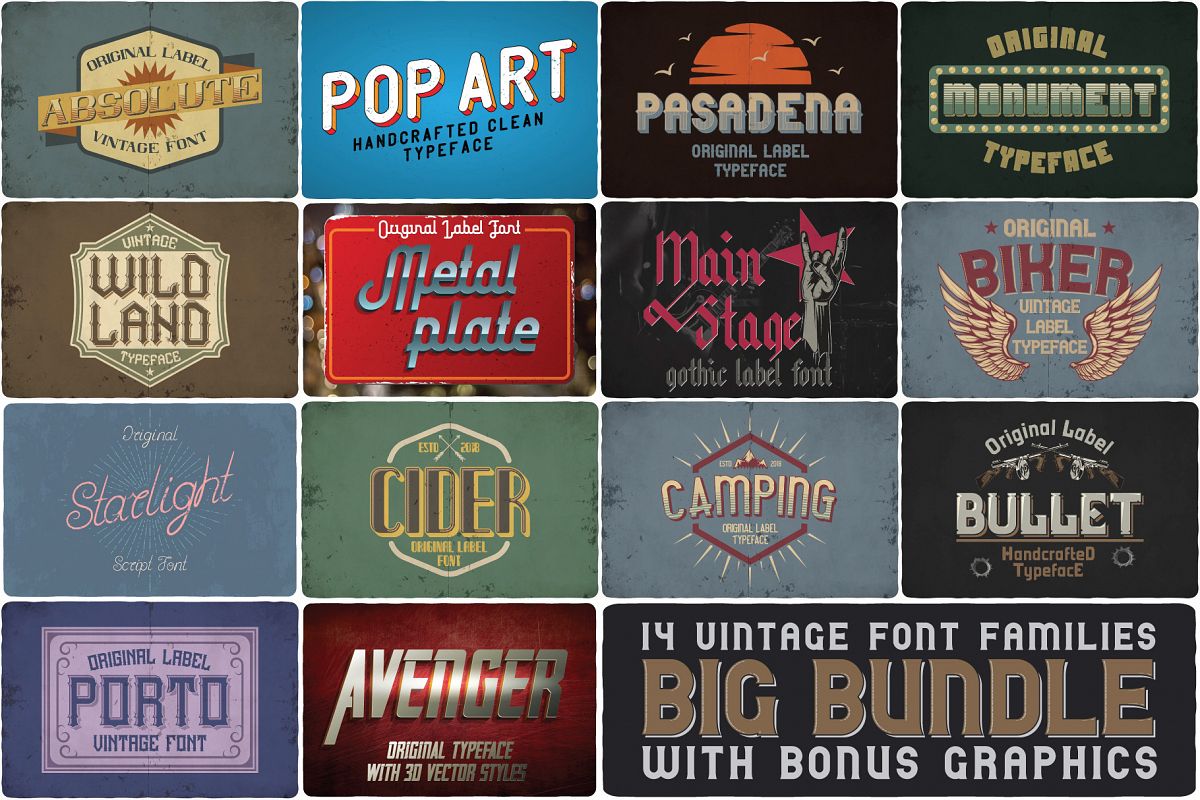
Big Bundle - 14 more fonts!
Retro or vintage style display fonts for your new projects. Great for grunge/retro/fantasy/vintage projects like: branding, corporate identity, print designs, headers, logo designs, t-shirt designs...
14 fonts in this bundle:
1. PopArt-typeface
2. Avenger-label-typeface
3. Metal-Plate
4. Absolute-typeface
5. Biker-typeface
6. Camping-typeface
7. Cider-typeface
8. Monument-typeface
9. Pasadena-typeface
10. Porto-typeface
11. Wild-Land-typeface
12. Main-Stage-typeface
13. Bullet-Typeface
14. Starlight-Typeface
Many of font families includes bonus graphics!